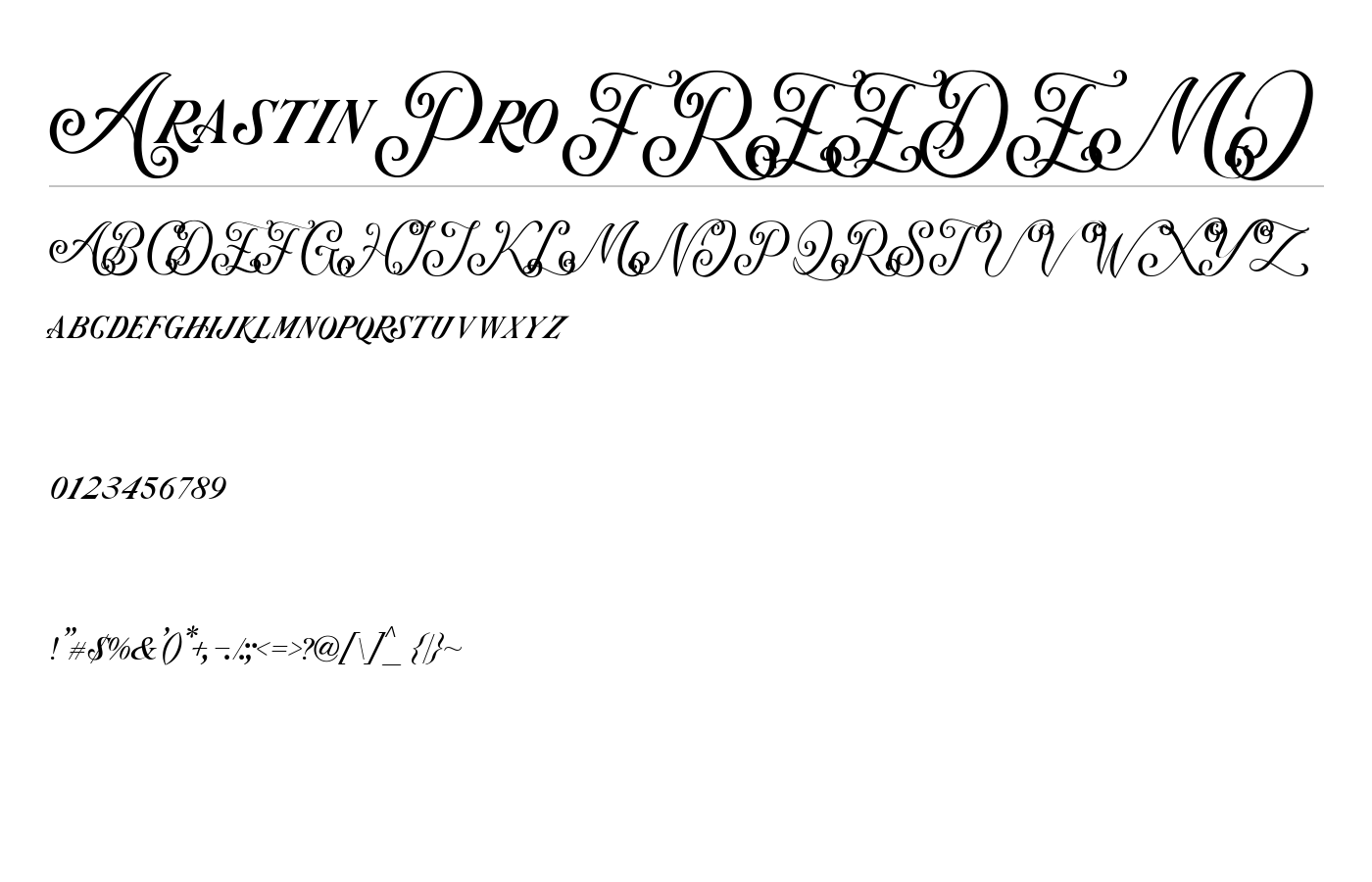
Arastin Pro FREE DEMO is an elegant serif script font with a high contrast between thick and thin strokes, characterized by its delicate, swirling flourishes and ornate letterforms. This font evokes a classic, luxurious feel, making it perfect for sophisticated branding, invitations, and fashion-related design that require a refined and decorative touch. Its graceful style shines in headlines and logos where elegance and flair are paramount.
Arastin Pro FREE DEMO Font
About Arastin Pro FREE DEMO Font
| Font family | Arastin Pro FREE DEMO Font |